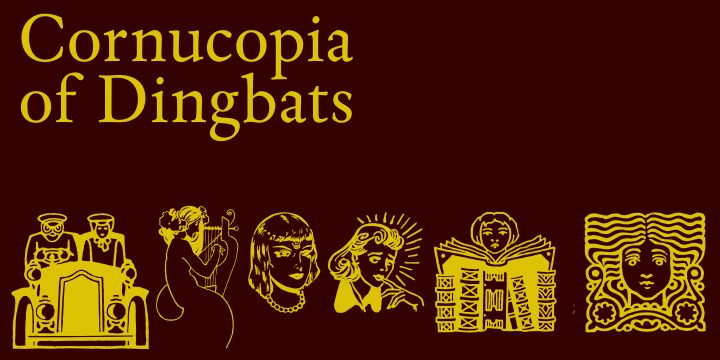
Cornucopia of Dingbats by Paulo W. is a free pictorial dingbat font with the flavor of vintage newspaper spot illustrations. The drawings have crisp silhouettes and lively period detail.
The collection can turn ordinary labels into miniature illustrated scenes. It suits retro packaging, editorial features, event posters, and playful merchandise, especially when a project benefits from a mix of people and ornamental imagery. Period costumes, expressive poses, floral patterns, and food motifs make the symbols particularly useful for nostalgic or theatrical themes.
Intellecta Design develops fonts based on historically and artistically relevant forms.
Cornucopia of Dingbats